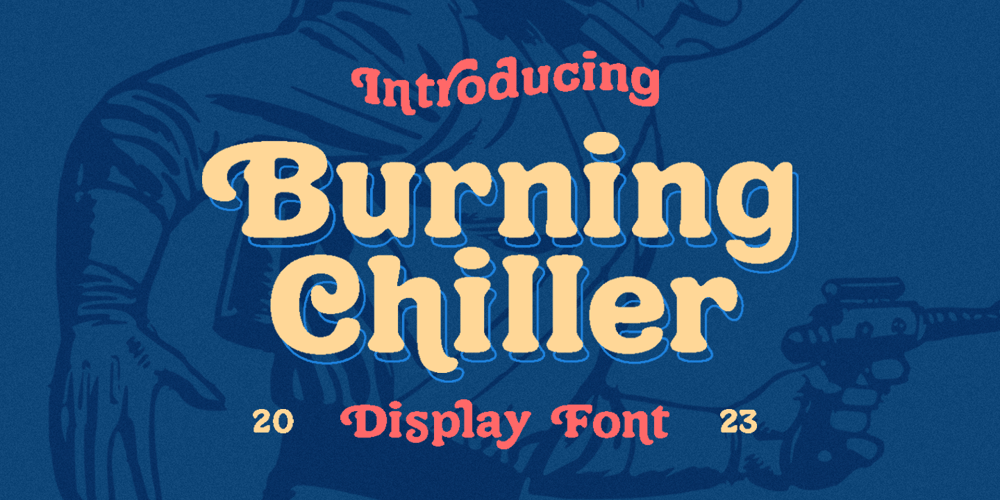
Burning Chiller
Burning Chiller font
Burning Chiller Font Family was designed by Hendry Juanda and published by Letterhend. Burning Chiller contains 1 styles and family package options. Introducing Burning Chiller, a playful typeface that captures the essence of the 90s era. Immerse yourself in its retro charm. Features : Uppercase & lowercase Numbers and punctuation Alternates & Ligatures Multilingual PUA encoded